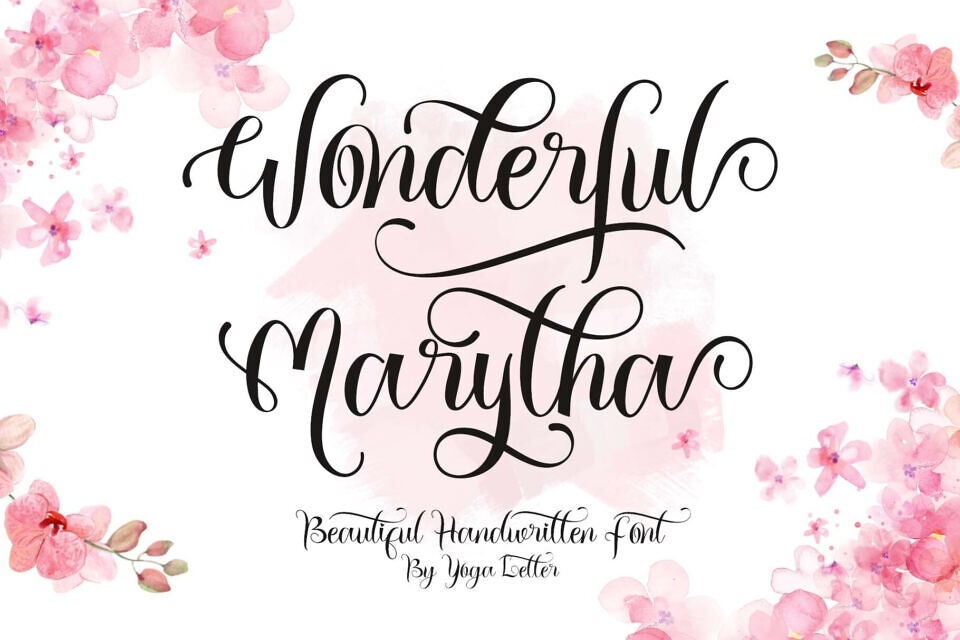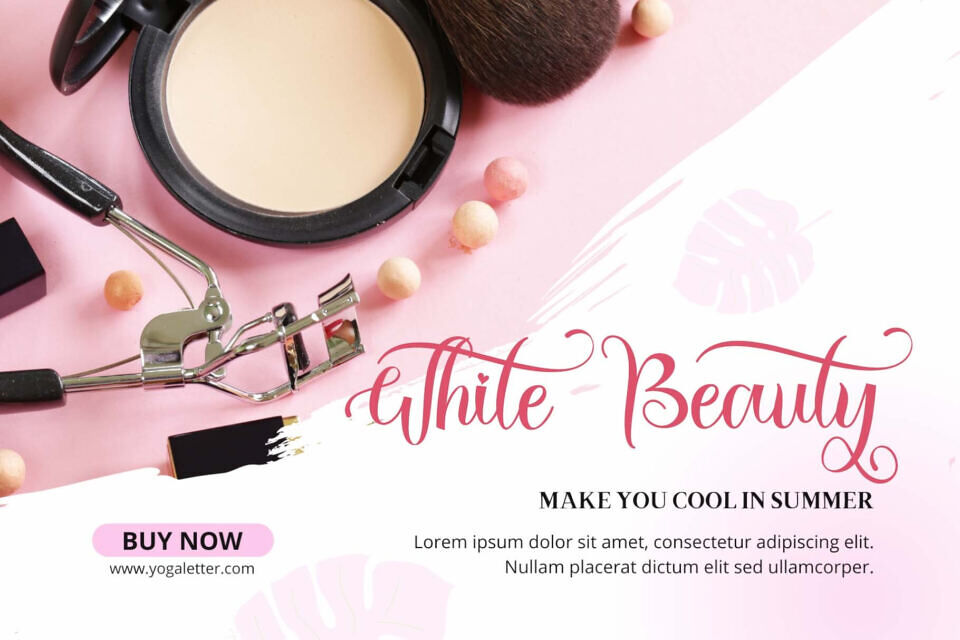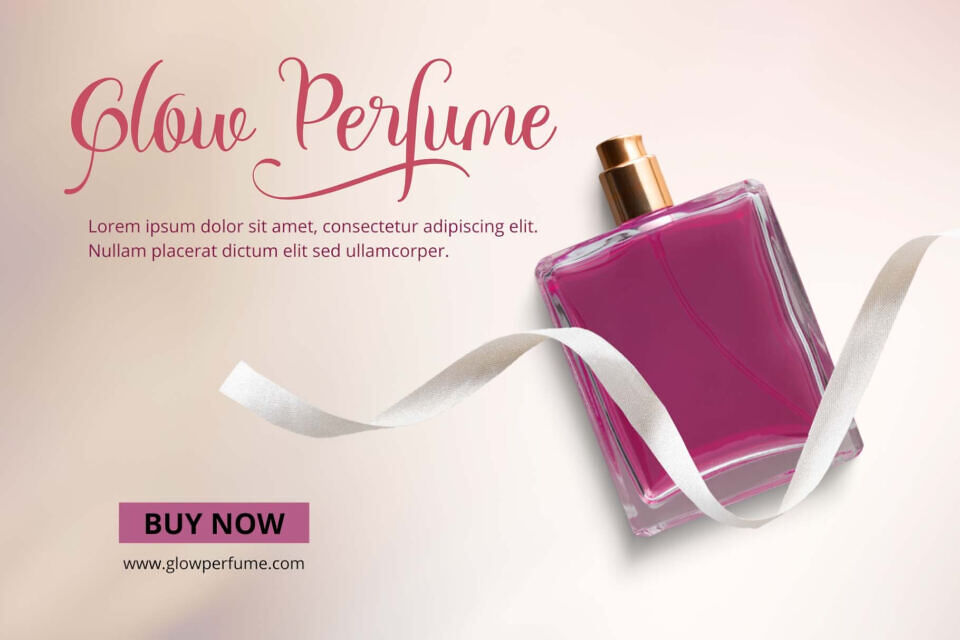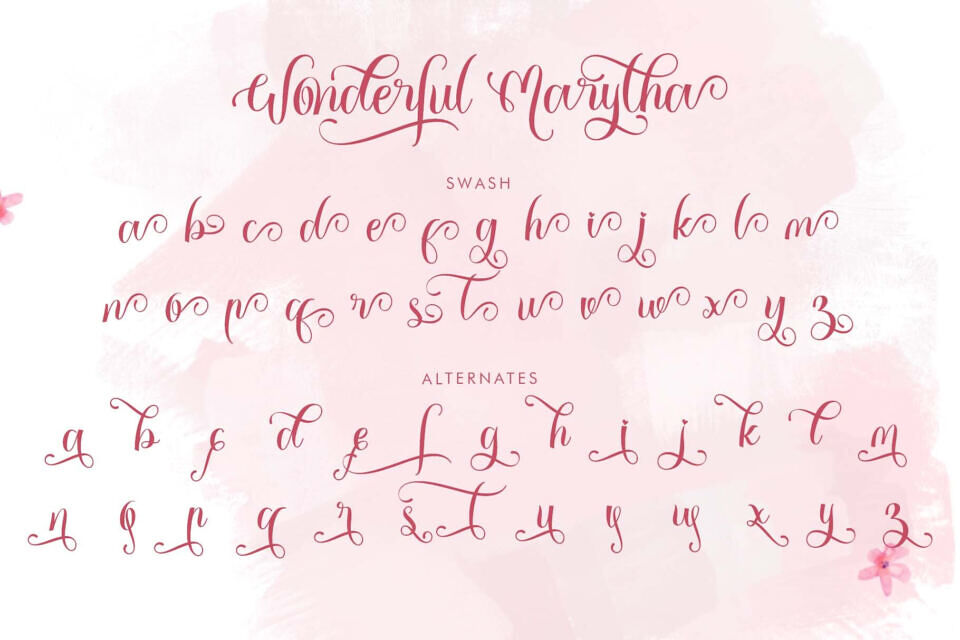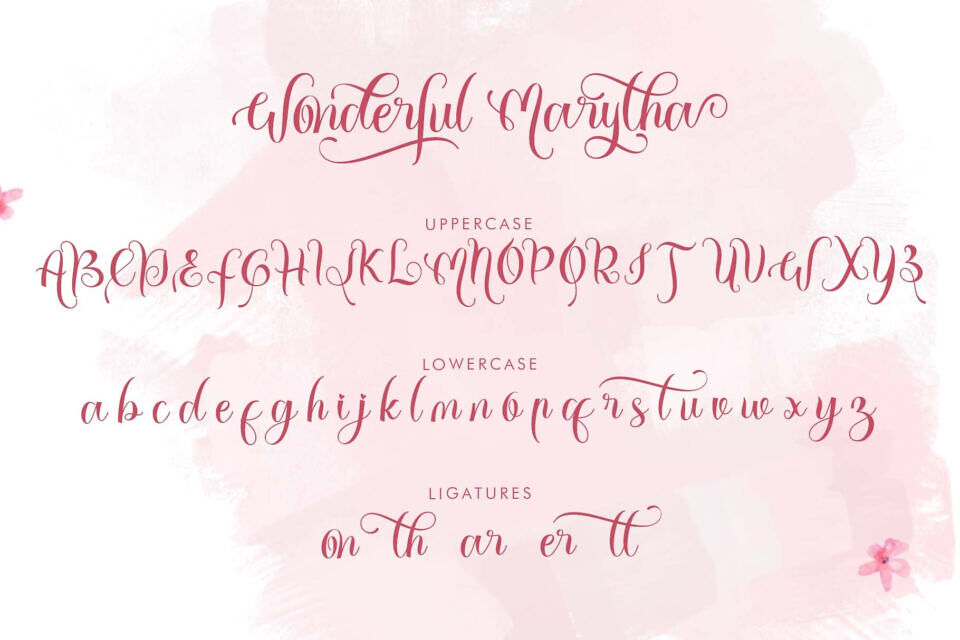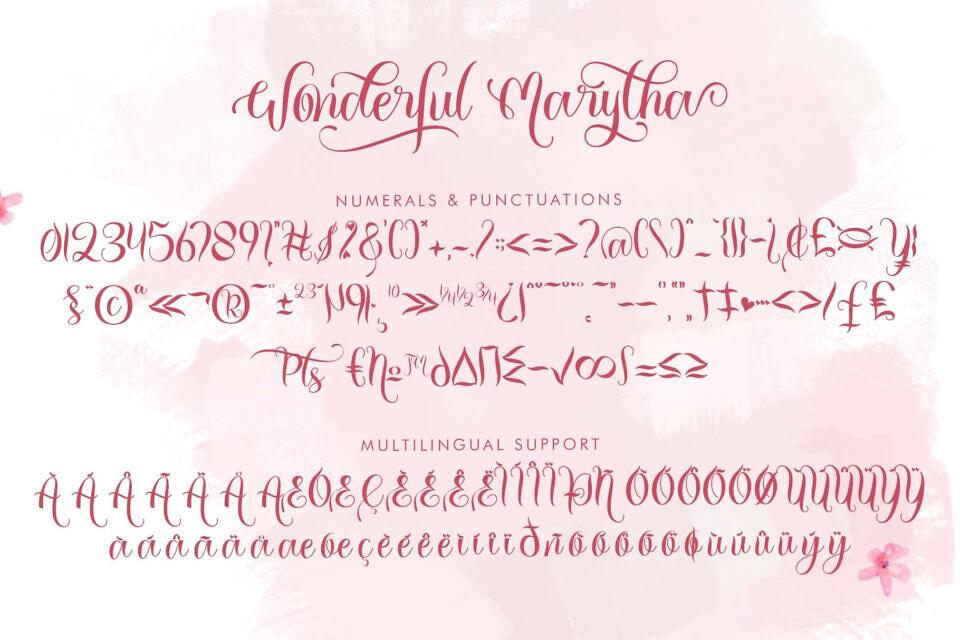
Wonderful Marytha is a beautiful and unique handwritten font. It features uppercase and lowercase letters, ligatures, numerals, punctuations, multilingual support, alternates, and swashes.
It’s perfect for invitations, weddings, certificates, business branding, Christmas, fall, winter, Valentine’s Day, and more.